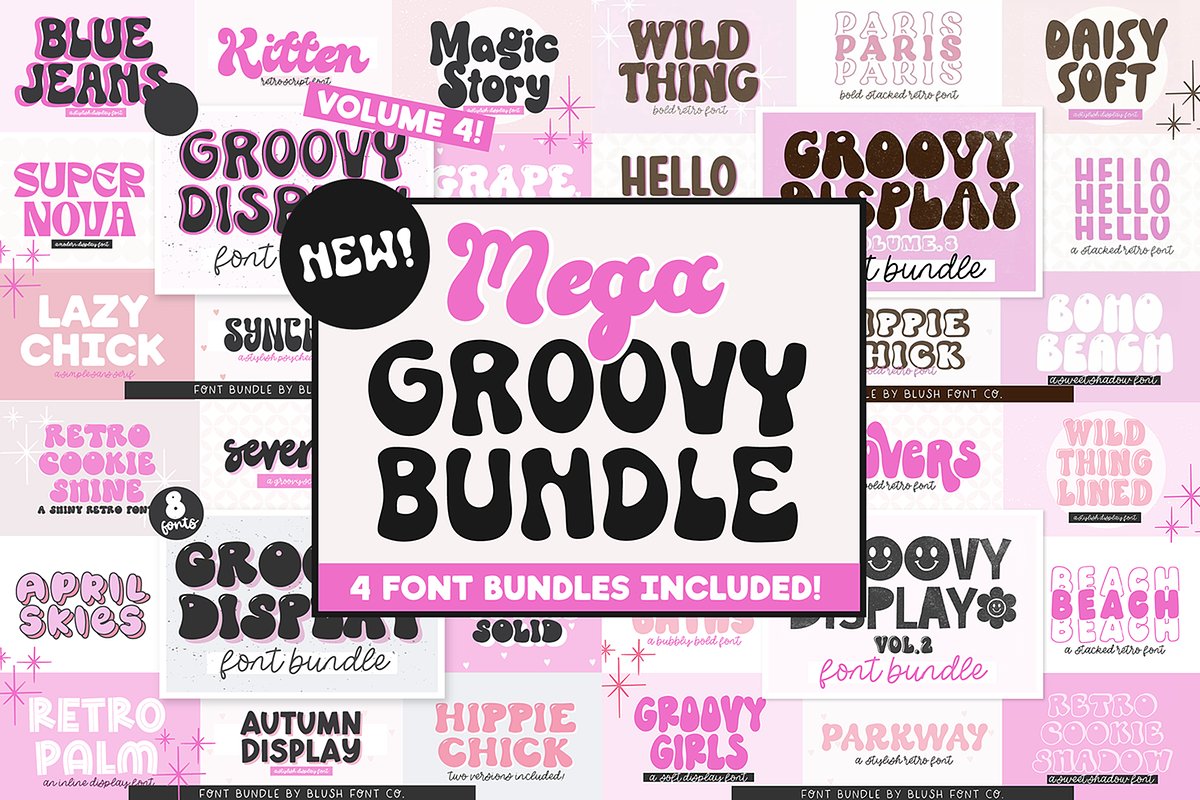
MEGA GROOVY RETRO FONT BUNDLE Free Download is a vibrant and nostalgic collection of fonts inspired by the funky, free-spirited vibes of the '60s, '70s, and '80s. Featuring bold curves, psychedelic swashes, bubbly letterforms, and playful details, this bundle is perfect for retro branding, posters, T-shirts, music covers, packaging, and any design that needs a colorful, vintage personality.
Packed with a variety of styles—from groovy scripts to chunky serifs and quirky display fonts—MEGA GROOVY RETRO FONT BUNDLE Free Download gives you all the tools to create bold and expressive retro-themed designs with ease.